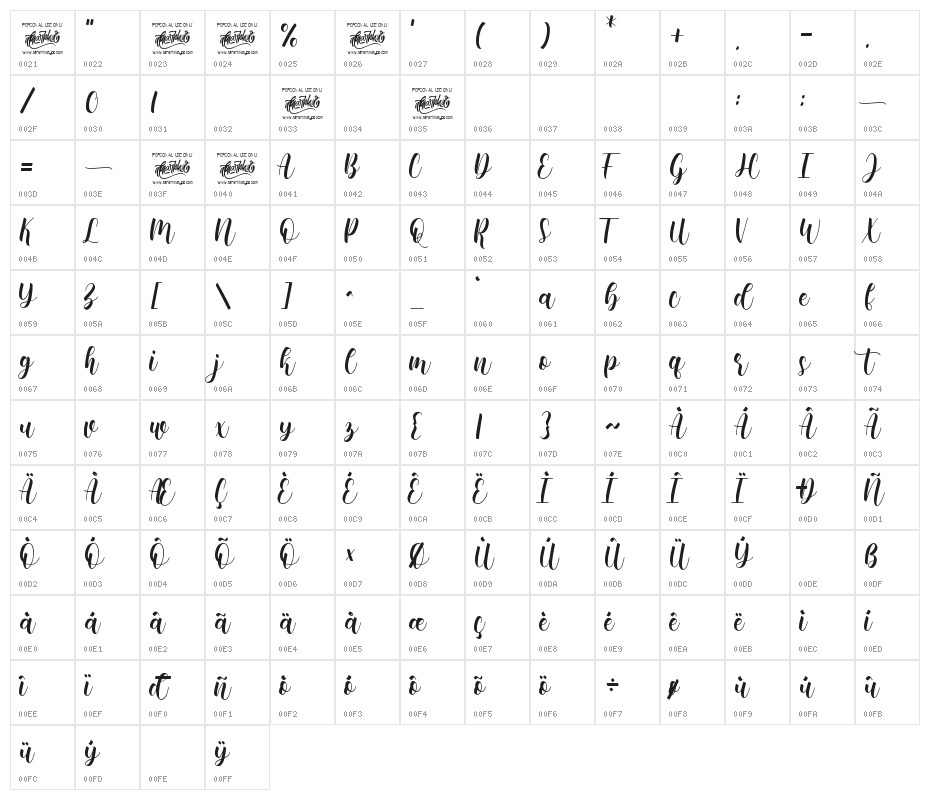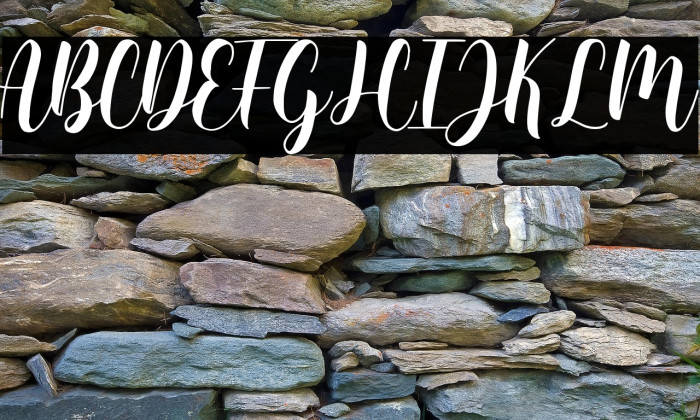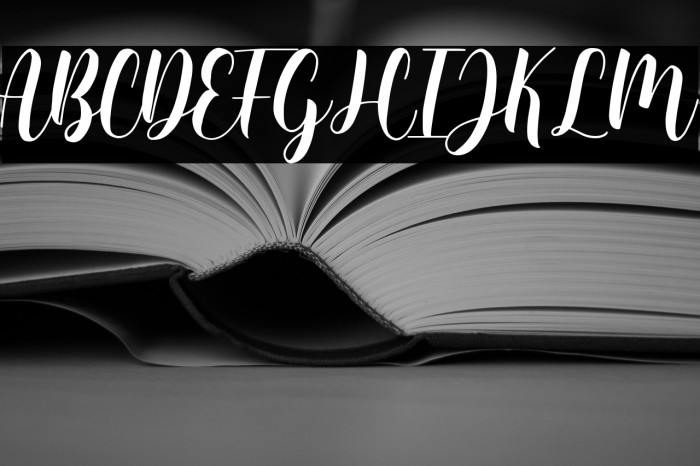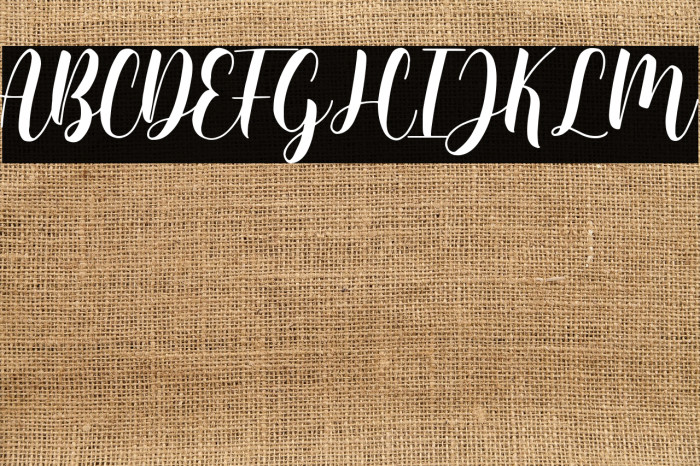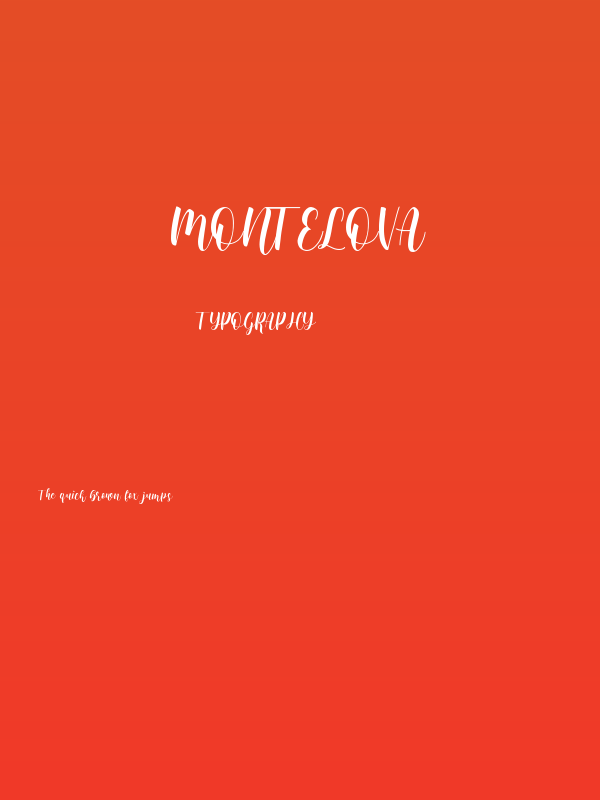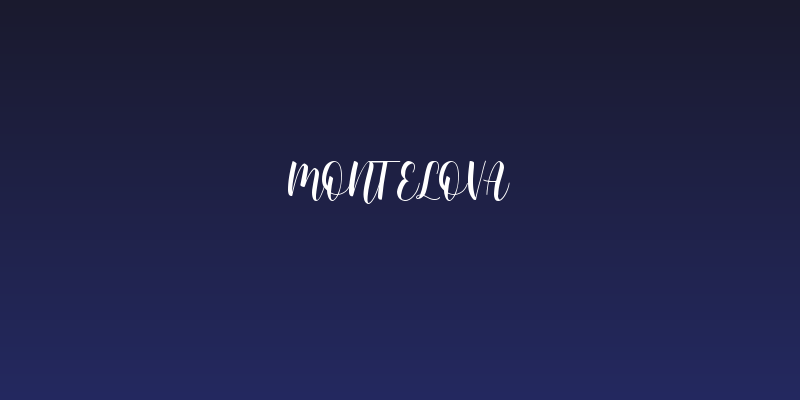
Montelova Font
Montelova Description
This font features a flowing, cursive style with elegant, sweeping strokes that give it a handwritten appearance. The uppercase letters are bold and expressive, with varying line thickness that adds a dynamic feel. The lowercase letters maintain a consistent style, complementing the uppercase with their smooth curves and loops. The numbers and special characters are designed to match the overall aesthetic, ensuring a cohesive look across all text. This font is perfect for creating a personal and artistic touch in any design project.
| Proposed Projects | Ideal for wedding invitations, greeting cards, branding, and logo design where a personal touch is desired. |